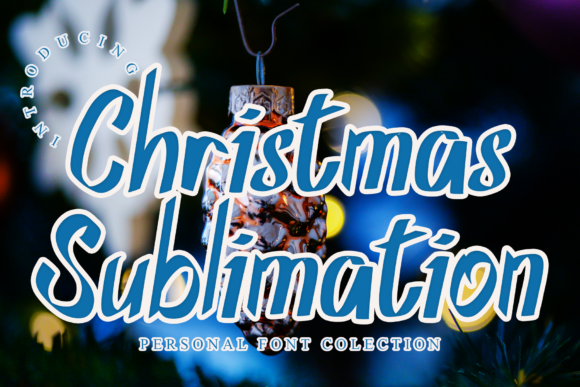
About Christmas Sublimation Font
Christmas Sublimation is a unique and elegant handwritten font. It looks amazing on wedding invitations, thank you cards, weddings, greeting cards, logos, business cards and any other design that needs a handwritten touch.